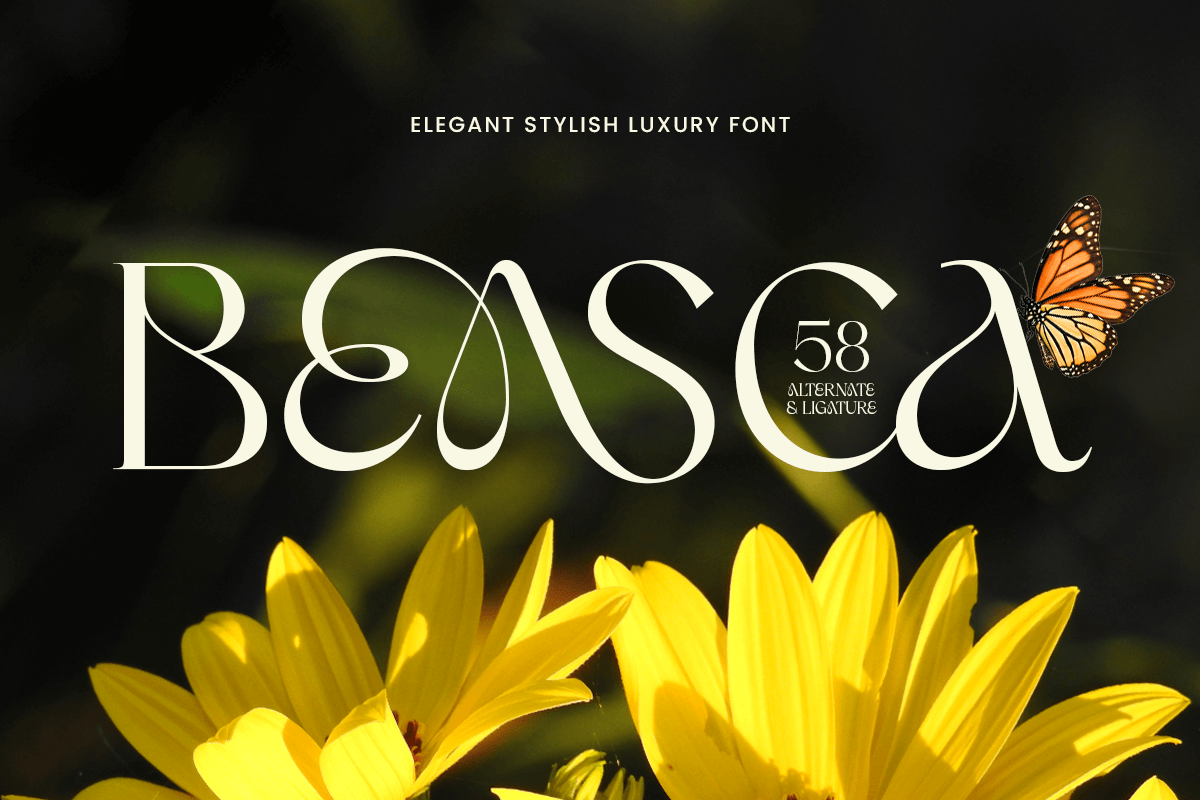
Beasca
-Elegant Stylish Serif Branding FontBeasca - Elegant Stylish Serif Branding Font
BEASCA is an elegant and stylish luxury font designed to elevate your creative projects with sophistication and refinement. Perfect for logos, high-end branding, editorial layouts, packaging, and digital or print media, it offers a timeless and polished appearance.
With graceful letterforms and balanced proportions, BEASCA provides a premium look while maintaining readability and versatility. It’s the ideal choice for designers seeking a luxurious, chic, and professional typeface.
BEASCA – Elegant Stylish Luxury Font Features
Elegant and stylish character set
Perfect for luxury branding and premium projects
Suitable for both digital and print designs
OpenType features for added versatility
Bring elegance and luxury to your projects with BEASCA – the ultimate stylish font for premium branding. ✨